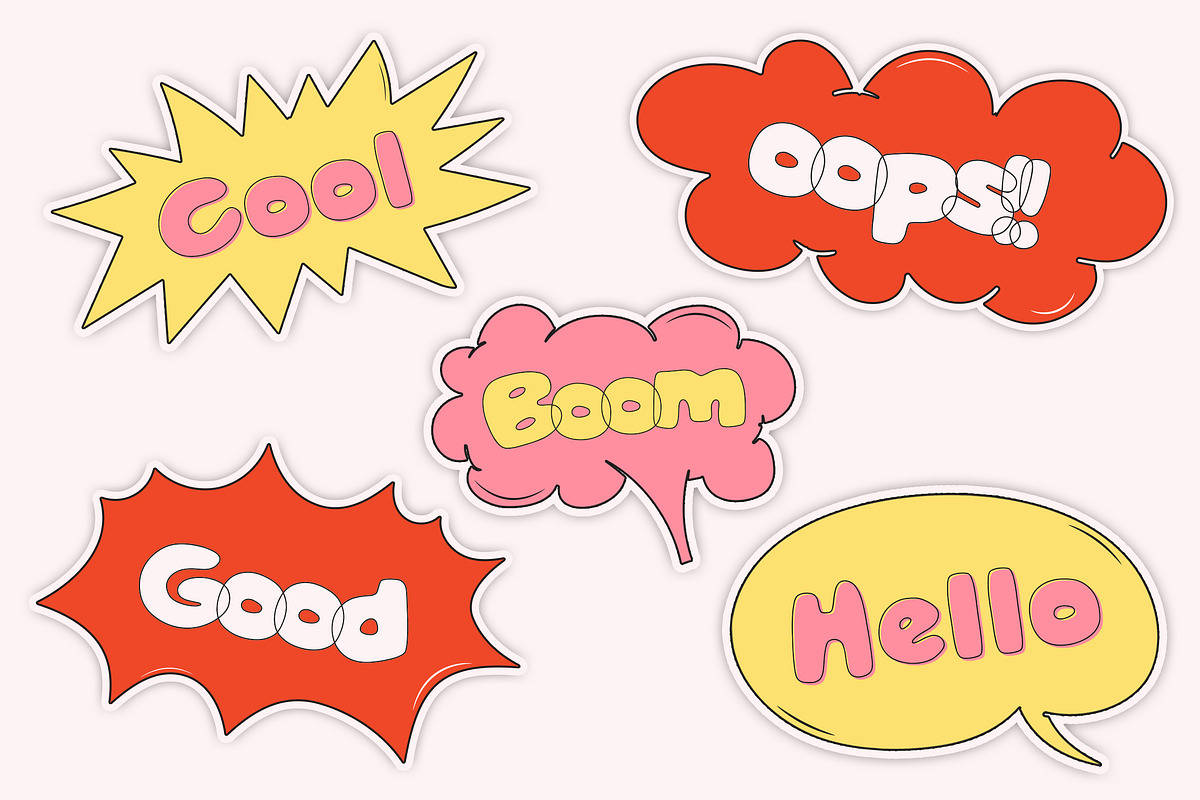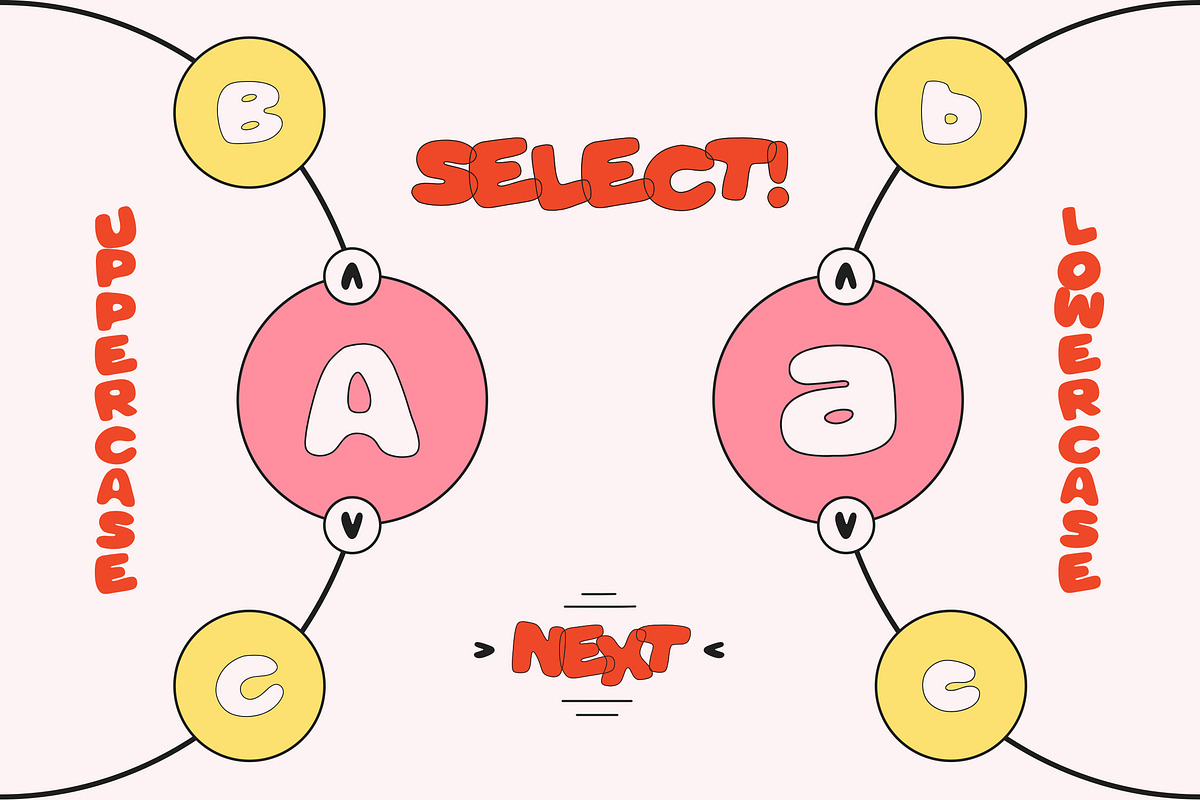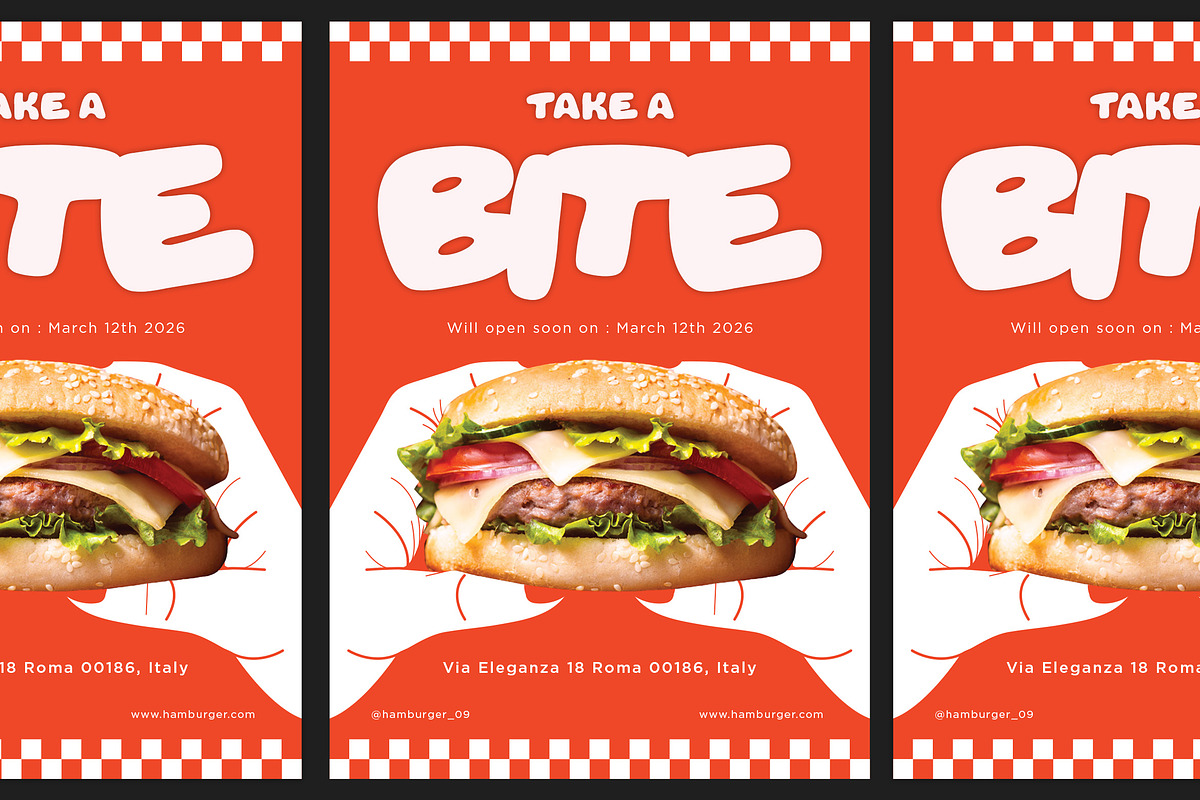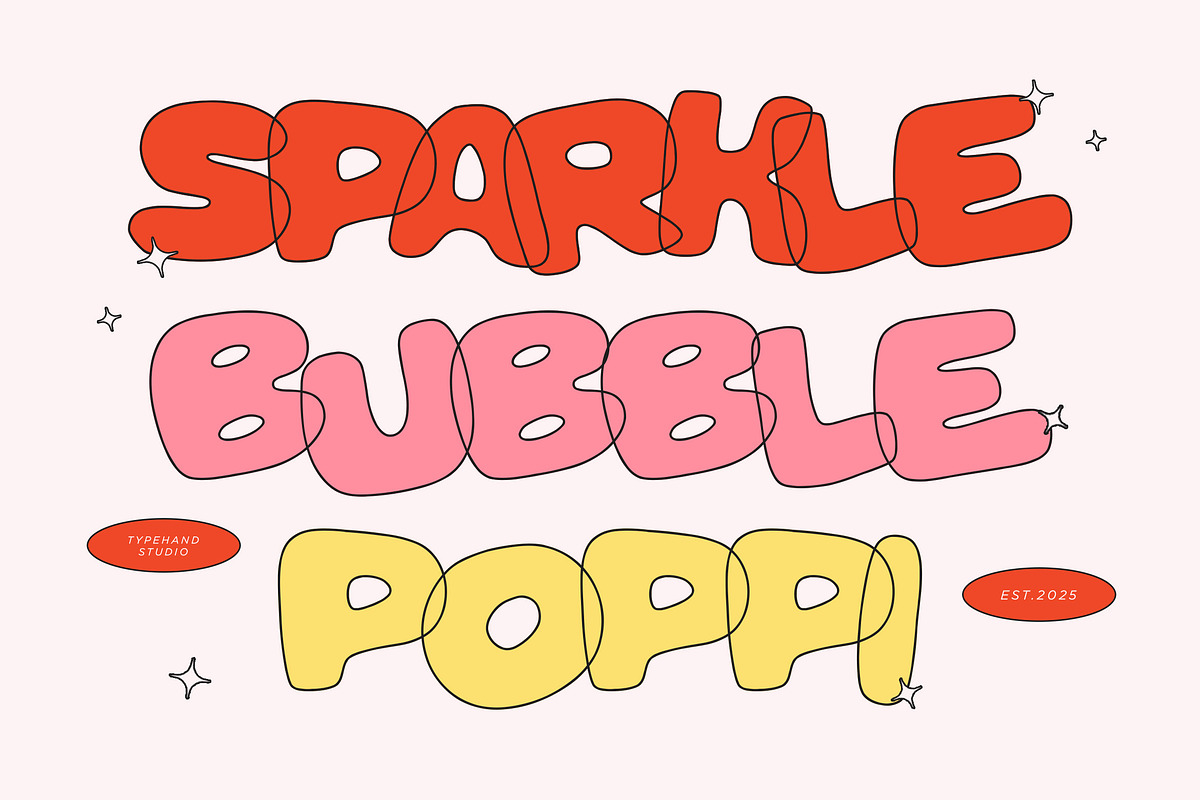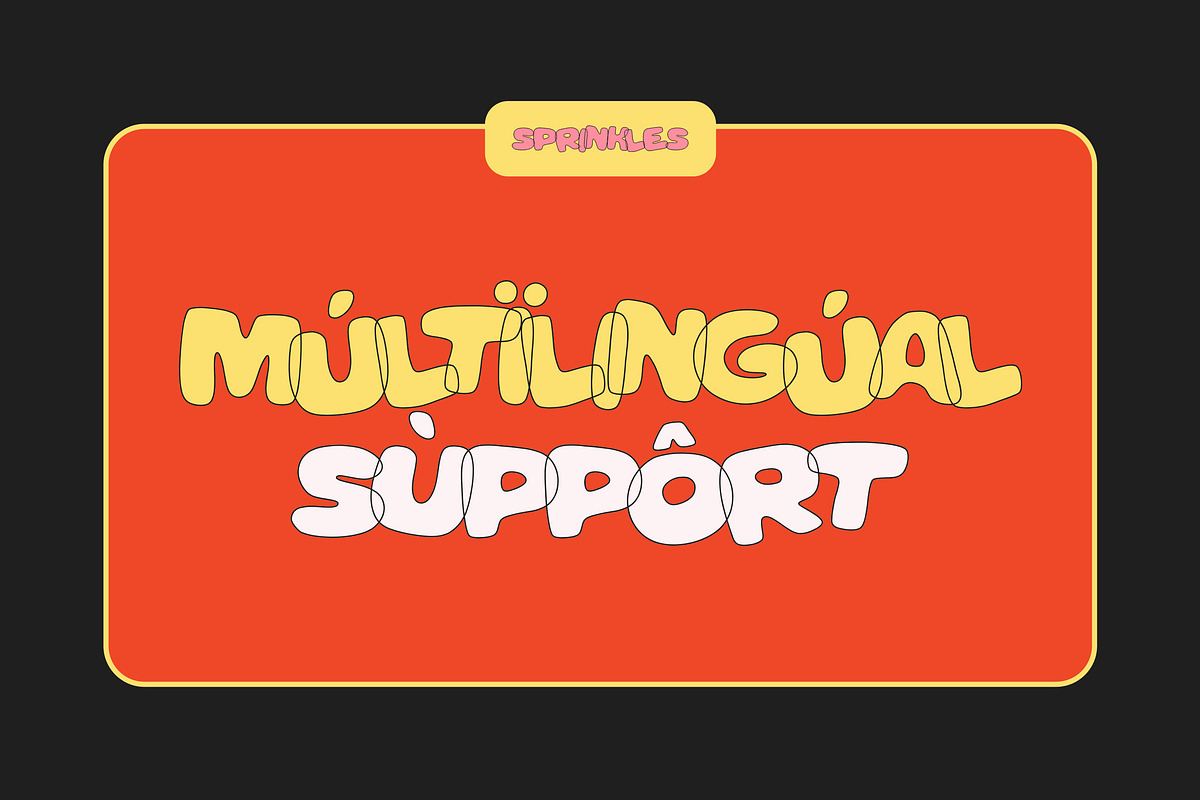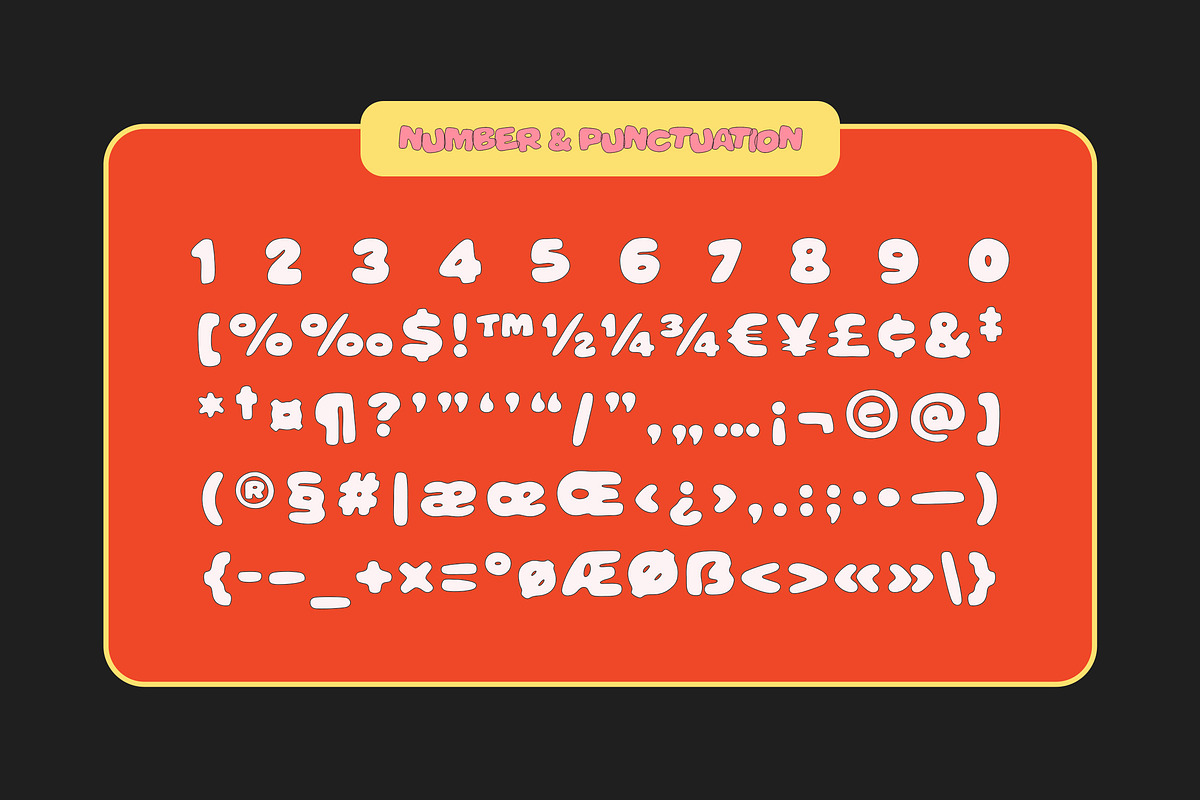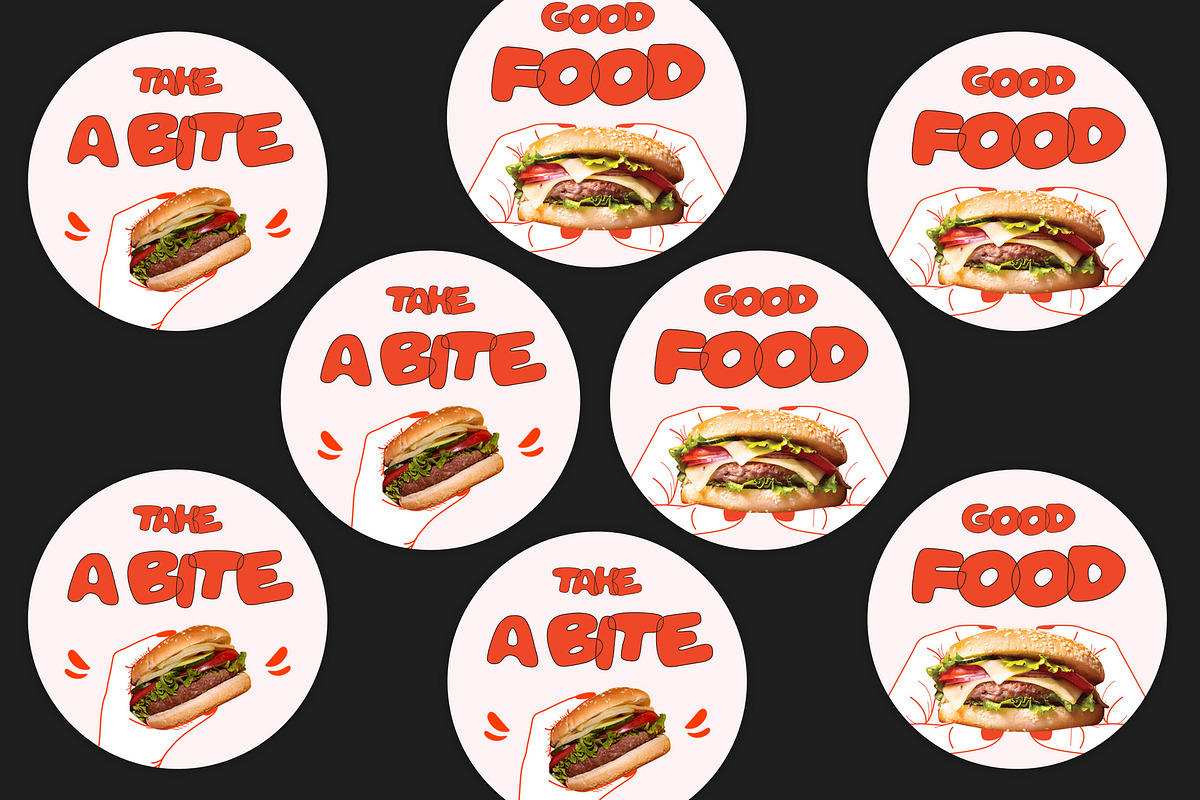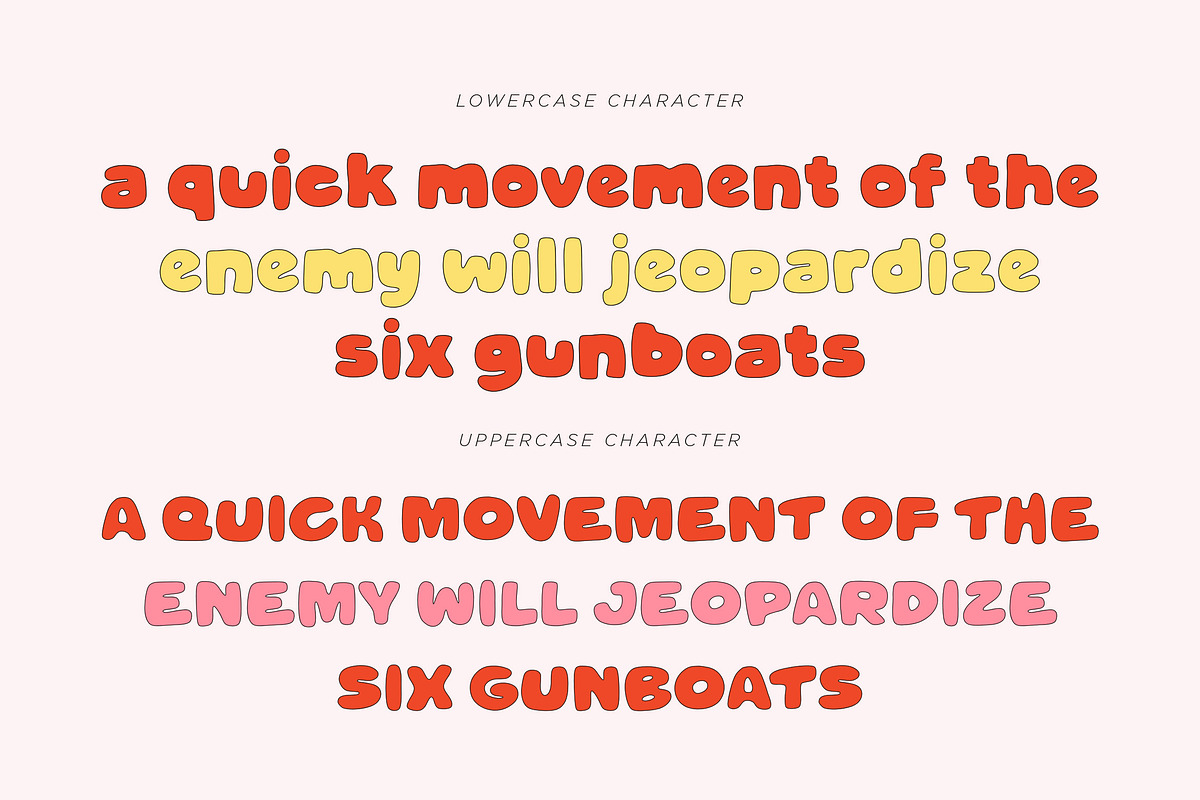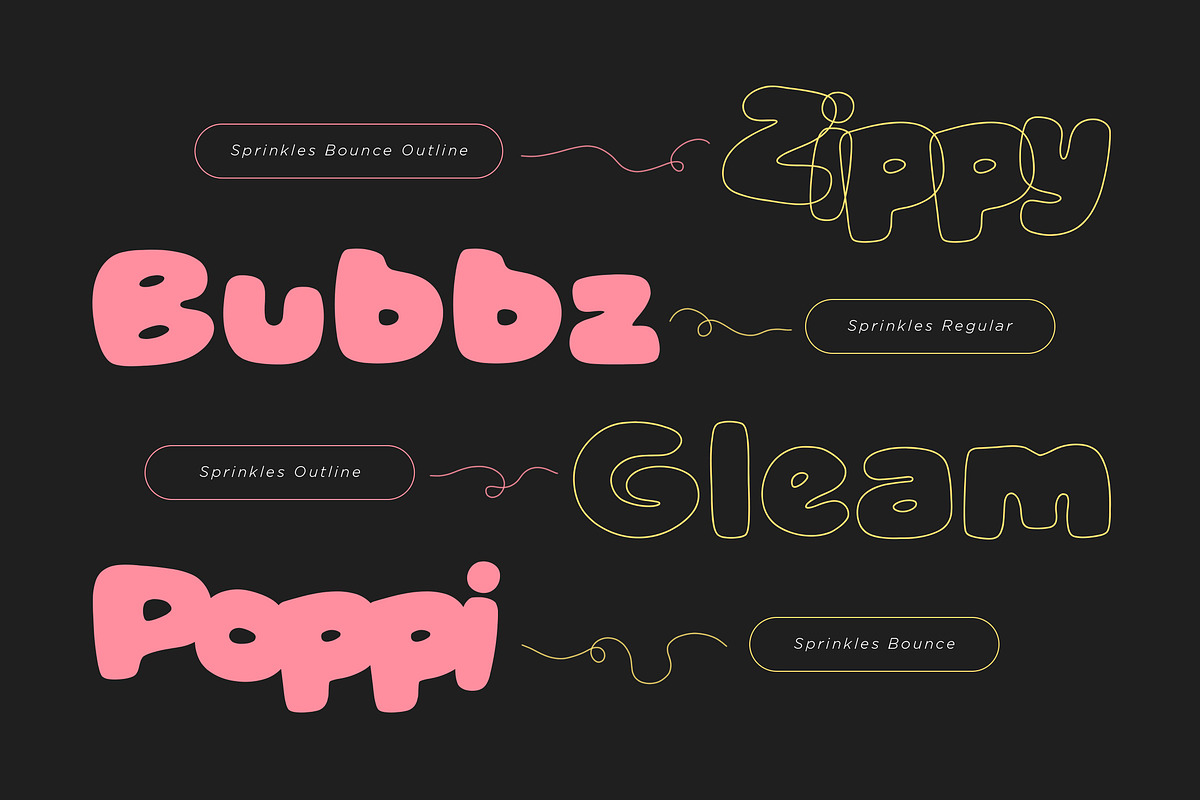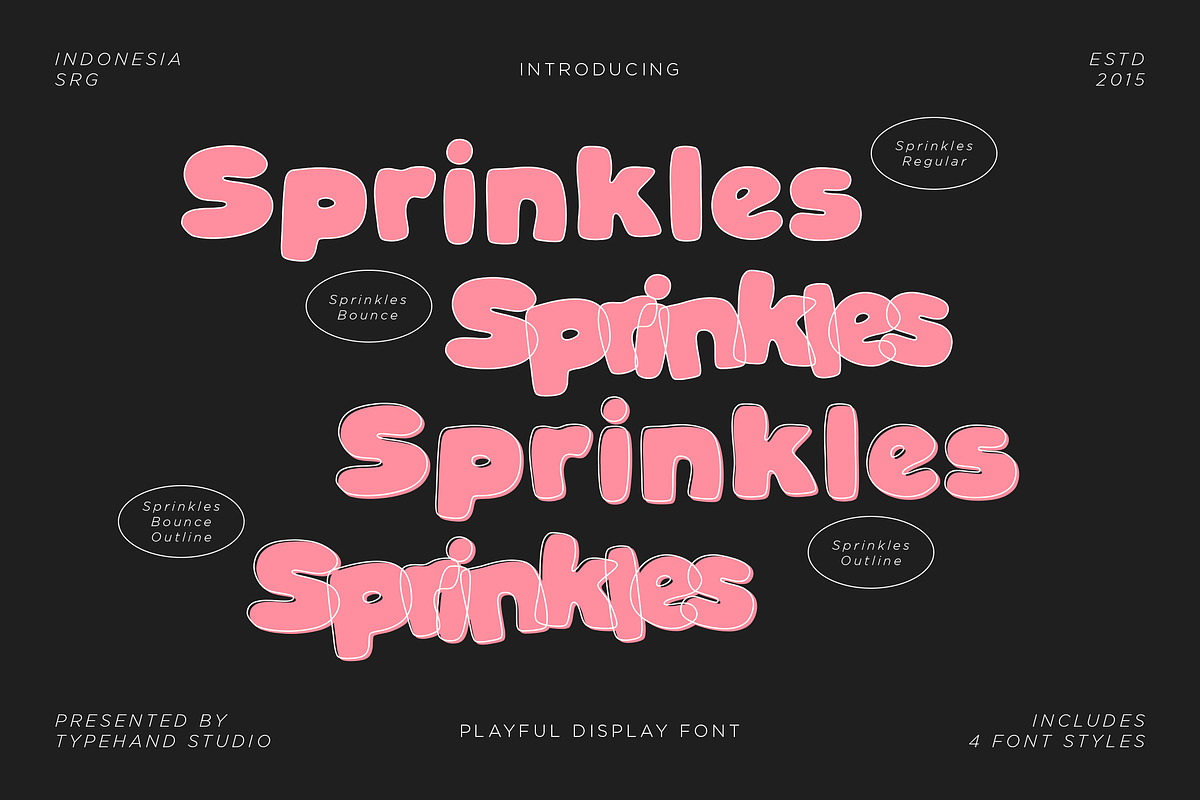
Sprinkles Bubble Display
Sprinkles is a bold bubble display typeface designed to bring energy, warmth, and playful character into modern branding. Built with soft rounded shapes and thick uniform strokes, this typeface creates a strong visual presence while maintaining a friendly and approachable tone.
The letterforms are constructed with smooth curves and inflated proportions, giving the typeface its signature “bubble” appearance. This makes Sprinkles highly effective for projects that need to feel fun, inviting, and easy to engage with. The large x-height and compact spacing ensure excellent readability, especially in headlines, packaging, and short-form text.
One of the key strengths of Sprinkles is its versatility through multiple styles. The typeface includes regular, outline, and bounce variations, allowing designers to create dynamic and layered compositions. These styles can be combined to build playful typography systems, adding depth and movement to branding and visual communication.
Sprinkles is particularly well-suited for food and beverage branding. Its soft and rounded personality naturally complements products like snacks, desserts, fast food, and beverages. The typeface helps communicate taste, enjoyment, and comfort—qualities that are essential in consumer-facing packaging.
Beyond food branding, Sprinkles performs equally well in children’s products, toy packaging, posters, and social media graphics. Its friendly tone makes it ideal for brands that want to feel accessible and energetic without appearing overly childish.
The typeface also works effectively in merchandise design such as stickers, apparel, and promotional items. Its bold shapes ensure visibility across different mediums, from digital screens to print materials.
Sprinkles includes a full set of uppercase, lowercase, numerals, punctuation, and multilingual characters, giving designers the flexibility to use it across global projects.
Sprinkles is a strategic choice for designers who need a typeface that instantly communicates fun, friendliness, and bold visual appeal while remaining highly usable across multiple design contexts.